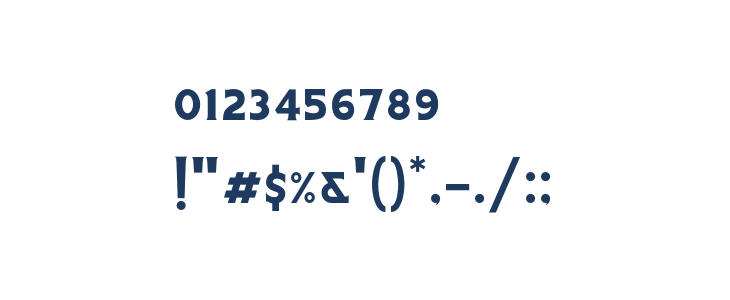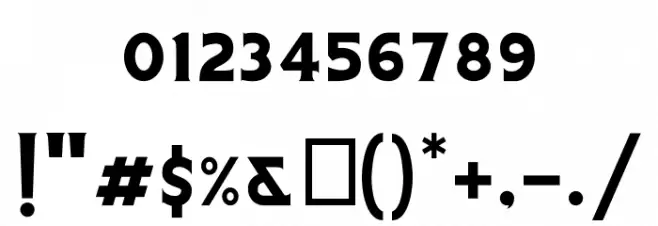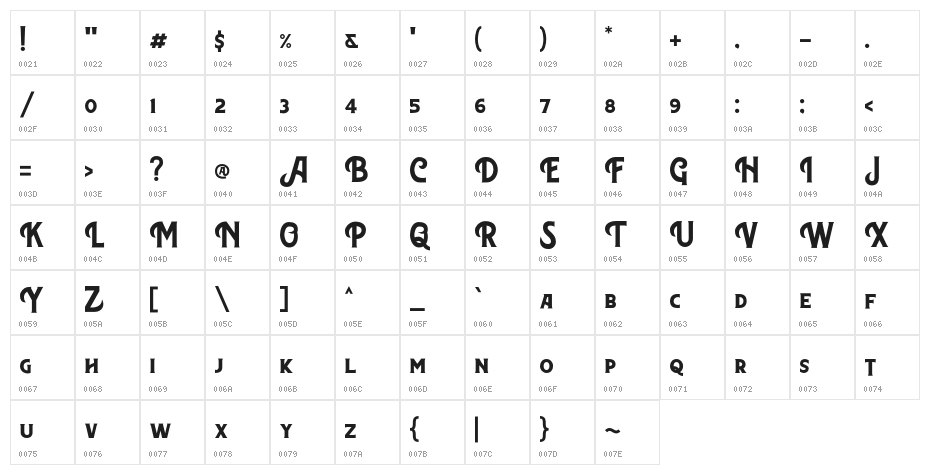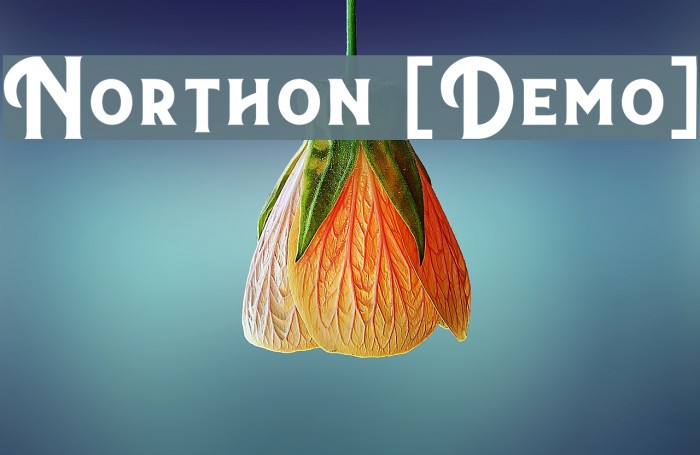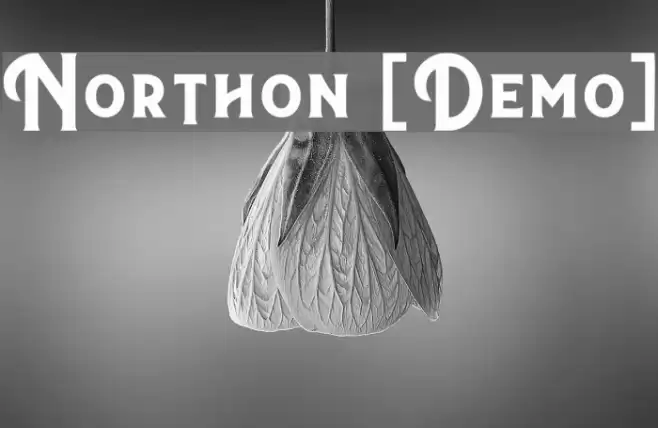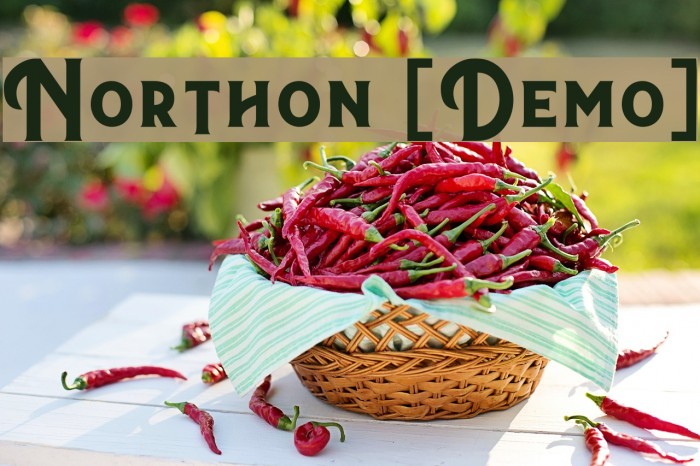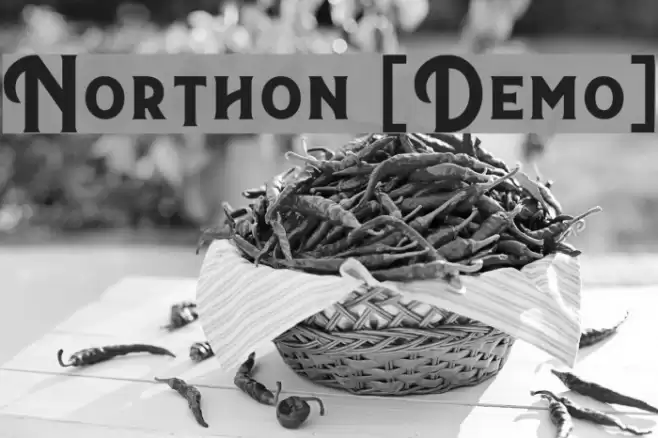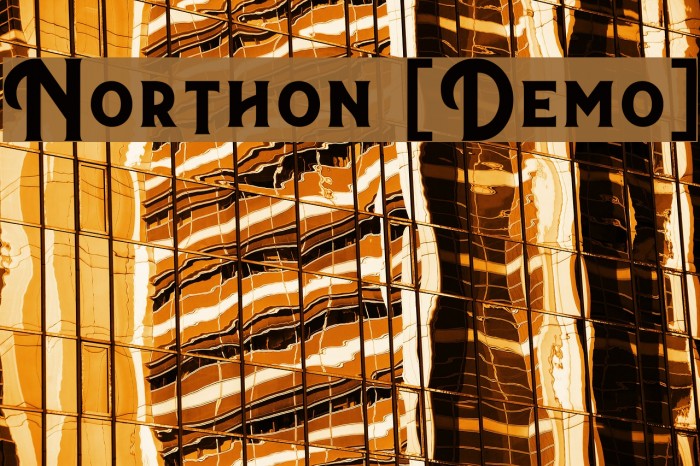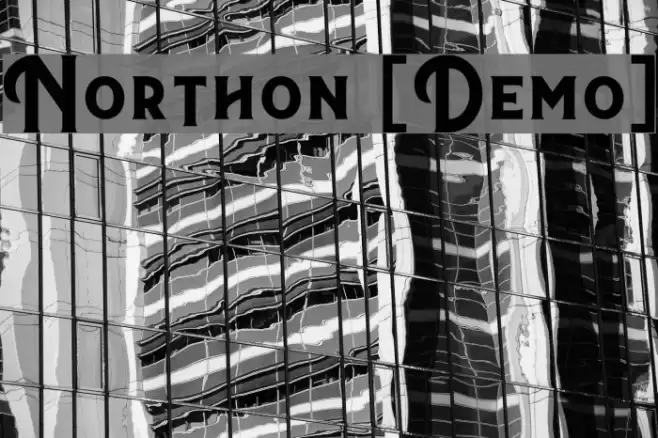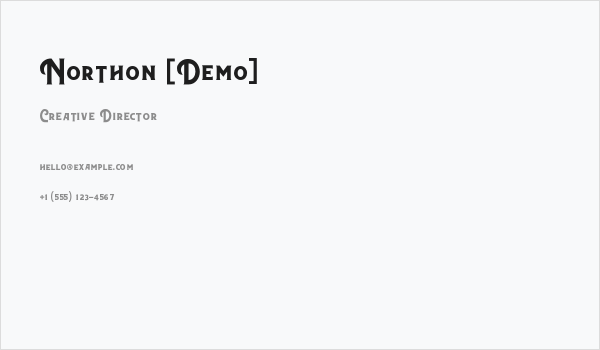
Northon [Demo] Font
Northon [Demo] Description
This font features a bold and decorative style with a strong presence. The uppercase letters have a unique flair, with some characters exhibiting a slight curvature that adds to its distinctiveness. The lowercase letters maintain a consistent weight, complementing the uppercase with a more straightforward design. Numbers are clear and bold, ensuring readability. Special characters are well-integrated, matching the overall aesthetic. This font is ideal for making a statement, with its eye-catching design and bold strokes.
| Proposed Projects | Ideal for branding, posters, headlines, and any project needing a strong visual impact. |